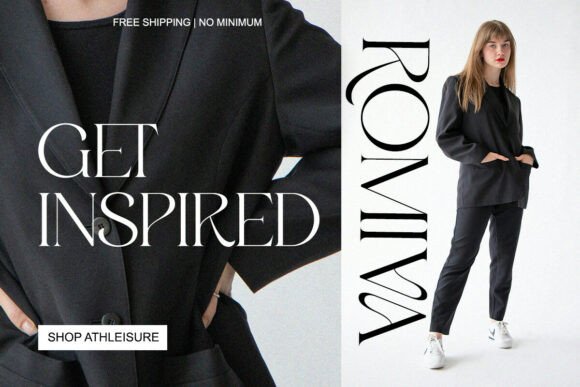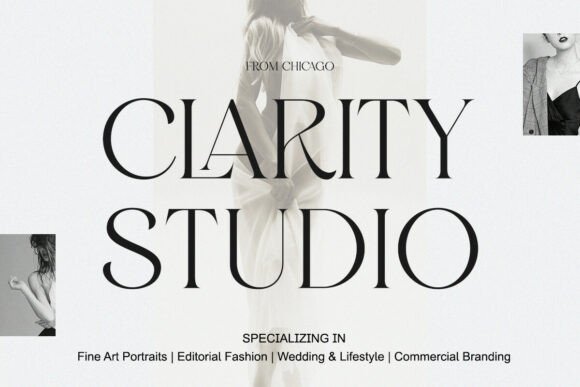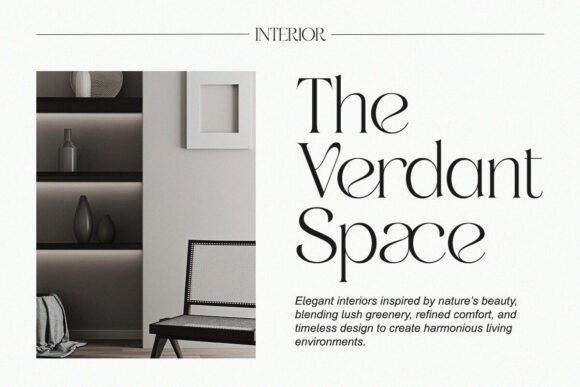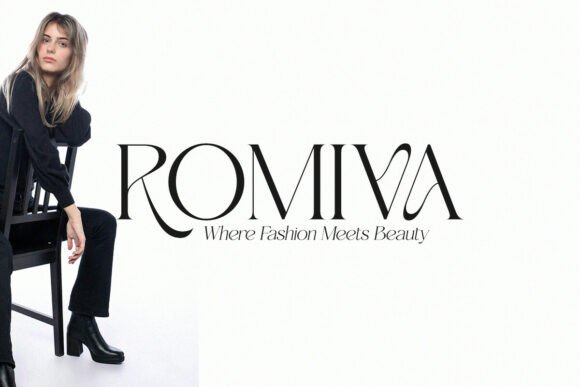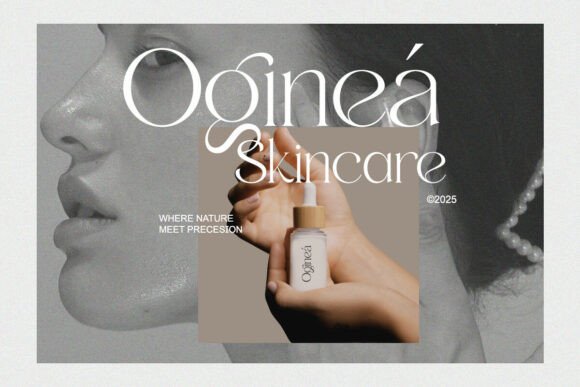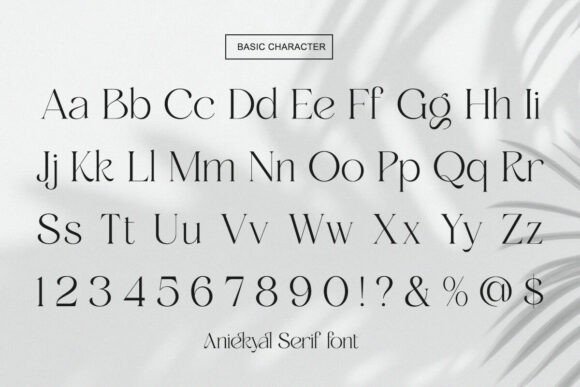
Introducing Aniekyal – Luxury Serif Font
In the world of typography, a well-crafted font can elevate a design project from ordinary to extraordinary. For creatives who demand exclusivity and sophistication in their work, Aniekyal Font is a game-changer. This luxury serif font seamlessly fuses modern elegance with timeless charm, making it the perfect choice for designers and crafters who want to make a statement.
Unique Letterforms and Stylish Alternates
Aniekyal Font boasts unique letterforms that set it apart from more traditional typefaces. Its stylish alternates and refined ligatures add a touch of sophistication and whimsy, allowing designers to create complex and visually appealing typography compositions. Whether you’re working on a luxury branding project, a fashion magazine, or a wedding stationery design, Aniekyal’s distinctive character is sure to impress.
Elevated Aesthetic for Creative Projects
Aniekyal Font is designed to deliver an elevated aesthetic for creative projects that demand exclusivity. Its sleek details and crafted curves make it ideal for both display headlines and delicate typography compositions. The font’s refined features and elegant lines ensure that it will add a touch of luxury to any design project, from logos and product packaging to editorial layouts and more.
Perfect for Luxury Branding and Design Projects
Aniekyal Font is perfect for designers and crafters who work on luxury branding projects. Its bold, elegant character makes it ideal for high-end fashion brands, jewelry designers, and luxury goods manufacturers. The font’s versatility also makes it suitable for a wide range of design projects, including:
- Fashion magazines and editorials
- Wedding stationery and event invitations
- Logos and brand identities
- Product packaging and labeling
- Editorial layouts and typography compositions
Key Features of Aniekyal Font
So, what sets Aniekyal Font apart from other typefaces? Here are some of its key features:
- Unique letterforms and stylish alternates
- Refined ligatures and elegant lines
- Sleek details and crafted curves
- Bold, elegant character
- Versatile and adaptable for various design projects
Why Choose Aniekyal Font?
With so many fonts available, why choose Aniekyal Font for your design projects? Here are just a few reasons:
- Exclusivity: Aniekyal Font is a unique and distinctive typeface that will set your design projects apart from the rest.
- Sophistication: The font’s elegant lines and refined features make it perfect for luxury branding and high-end design projects.
- Versatility: Aniekyal Font can be used for a wide range of design projects, from fashion magazines to product packaging.
- Ease of use: The font is easy to read and works well in both digital and print formats.
In conclusion, Aniekyal Font is a luxury serif font that offers a unique blend of modern sophistication and timeless charm. Its distinctive character, stylish alternates, and refined ligatures make it perfect for creatives who demand exclusivity in their design projects. Whether you’re working on a luxury branding project, a fashion magazine, or a wedding stationery design, Aniekyal Font is sure to deliver an elevated aesthetic that will impress your clients and set your work apart from the rest.